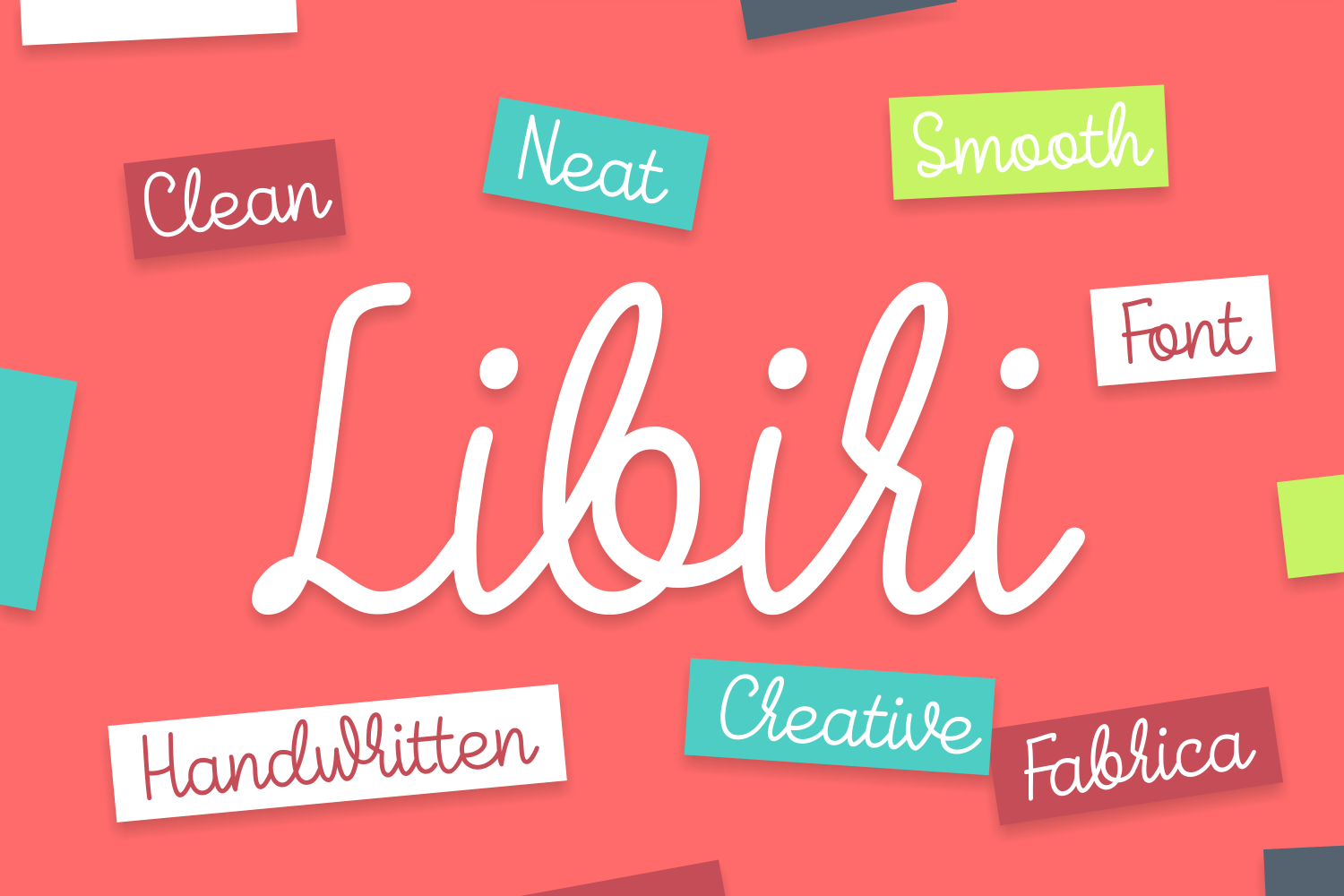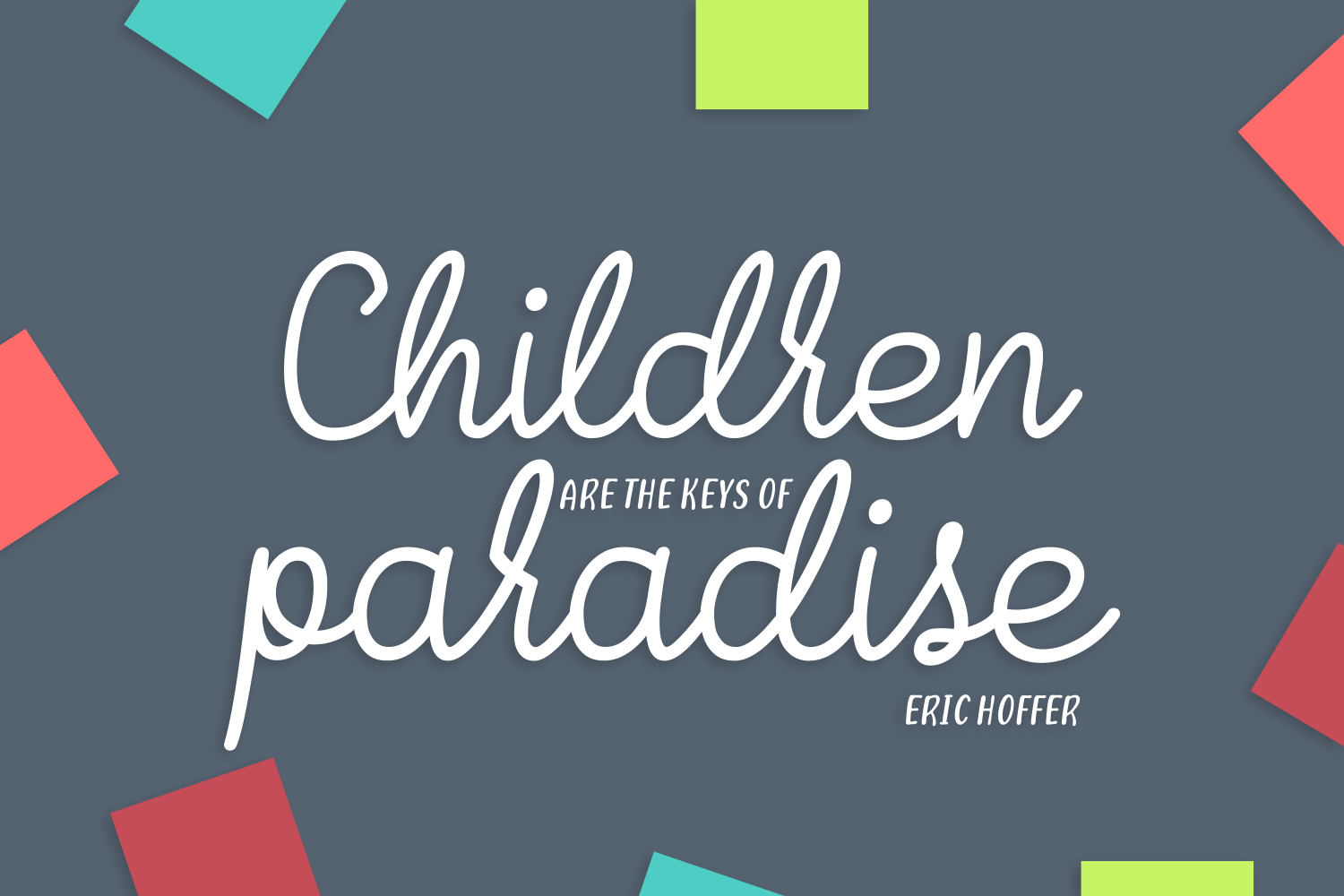
Introduction to Libiri Font
Libiri is a smooth monoline script font.
This playful font works great for children-focused designs, but also can be used to create playful design elements, headlines and much more The Libiri font comes in 2 versions: Regular & Italic.